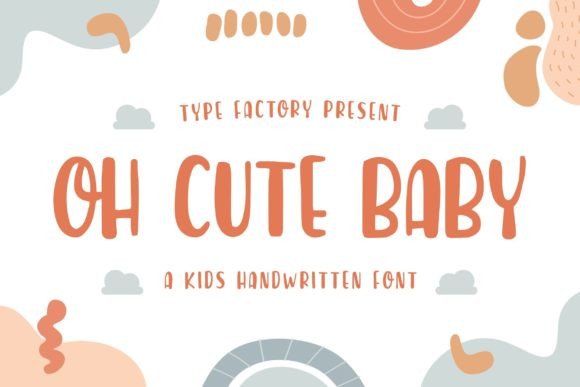
Introducing Oh Cute Baby Font, the perfect choice for anyone looking for the best fonts for comic books! This delightful font is a display font that has been carefully handcrafted to become a true favorite among children and adults alike. Created by TypeFactory, Oh Cute Baby is a kid's handwritten font that will bring joy and playfulness to any design.
This font is perfect for kids-themed designs, such as coloring books, birthday invitations, playgrounds, and kids' show events. It is also ideal for any project that requires a touch of fun and whimsy. Oh Cute Baby is PUA encoded, which means you can access all of the amazing glyphs and ligatures with ease. This feature ensures that your designs will stand out and look outstanding.
One of the best things about Oh Cute Baby is its ability to evoke emotion. This font is so much more than just a collection of letters and symbols. It is a font that brings out the inner child in all of us. With its playful and charming appearance, Oh Cute Baby is sure to put a smile on anyone's face.
In conclusion, if you are looking for the perfect font to elevate your comic book design, Oh Cute Baby is the ideal choice. With its captivating and eye-catching appearance, this font is sure to make your project stand out. Download Oh Cute Baby today and let your imagination run wild!